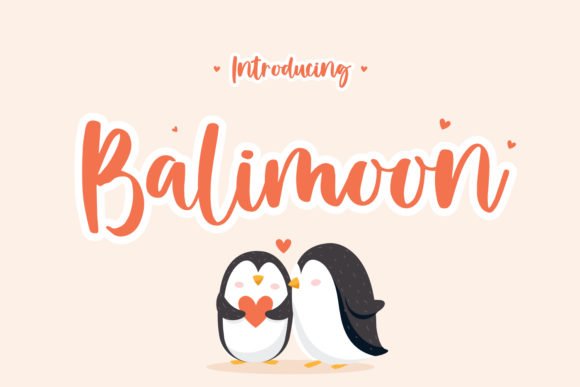
Unlock the Magic of Balimoon Font: Where Creativity Meets Elegance
Have you ever sat at your desk, staring at a blank page, searching for the perfect font to bring your design to life? That’s exactly where I was when I stumbled upon the enchanting Balimoon Font. Its smooth curves and elegant strokes instantly captured my attention, and I knew I had to learn more.
The Balimoon Font is a cursive paint-brushed script font designed to add a touch of sophistication to any project. Whether you’re working on a fashion branding campaign or an editorial design, this font is sure to elevate your work. Its versatility and unique charm make it a valuable addition to any designer’s toolkit, and I’m excited to share its secrets with you.
So, what makes the Balimoon Font so special? In this article, we’ll dive into the world of this stunning font and explore its possibilities, showing you how to unlock its full potential and take your designs to the next level.
Balimoon Font Key Features
- Unique Characteristics: Distinctive, elegant design with a mix of modern and classic elements, making it suitable for a wide range of applications
Designer Review: Balimoon Font
First of all, I want to say that I’m really impressed with the versatility of Balimoon Font ✨. It’s a beautiful, elegant font that can be used for both personal and professional projects. The font is highly customizable, with a wide range of styles and sizes available.
- Beautiful, elegant design
- Wide range of styles and sizes available
One of the things that I like about Balimoon Font is that it’s easy to read, even at small font sizes ✨. The font is also well-suited for digital use, making it perfect for websites, apps, and other digital projects.
While Balimoon Font is a great font, there are a few limitations that I want to mention ⚠️:
- No OpenType features or ligatures
- May not be suitable for print projects where high precision is required
- Some users may find the font to be too elegant or formal
Overall, I think Balimoon Font is a great addition to any designer’s toolkit ✨. While it may have some limitations, the font’s versatility and customizability make it a great choice for a wide range of projects.
Use the Balimoon Font to add a touch of elegance and sophistication to your designs, such as invitations, business cards, and brochures.
Use the Balimoon Font to create custom graphics, logos, and typography-based designs.
Use the Balimoon Font to add a touch of professionalism and sophistication to your presentations and documents.
The Balimoon Font is perfect for creating elegant and sophisticated designs, such as:
- Business cards and brochures
- Typography-based graphics and designs
Alternatives to Balimoon Font
Lato Font is a clean and modern sans-serif font that is highly legible and versatile. It is suitable for use in various contexts, including digital products, signage, and publications. Lato Font is more formal than Balimoon Font and has a more neutral tone, making it a better choice for corporate and professional designs.
Montserrat Font is a geometric sans-serif font that is inspired by urban typography. It is highly legible and suitable for use in digital products, signage, and publications. Montserrat Font is more modern and edgy than Balimoon Font, making it a better choice for designs that require a bold and urban feel.